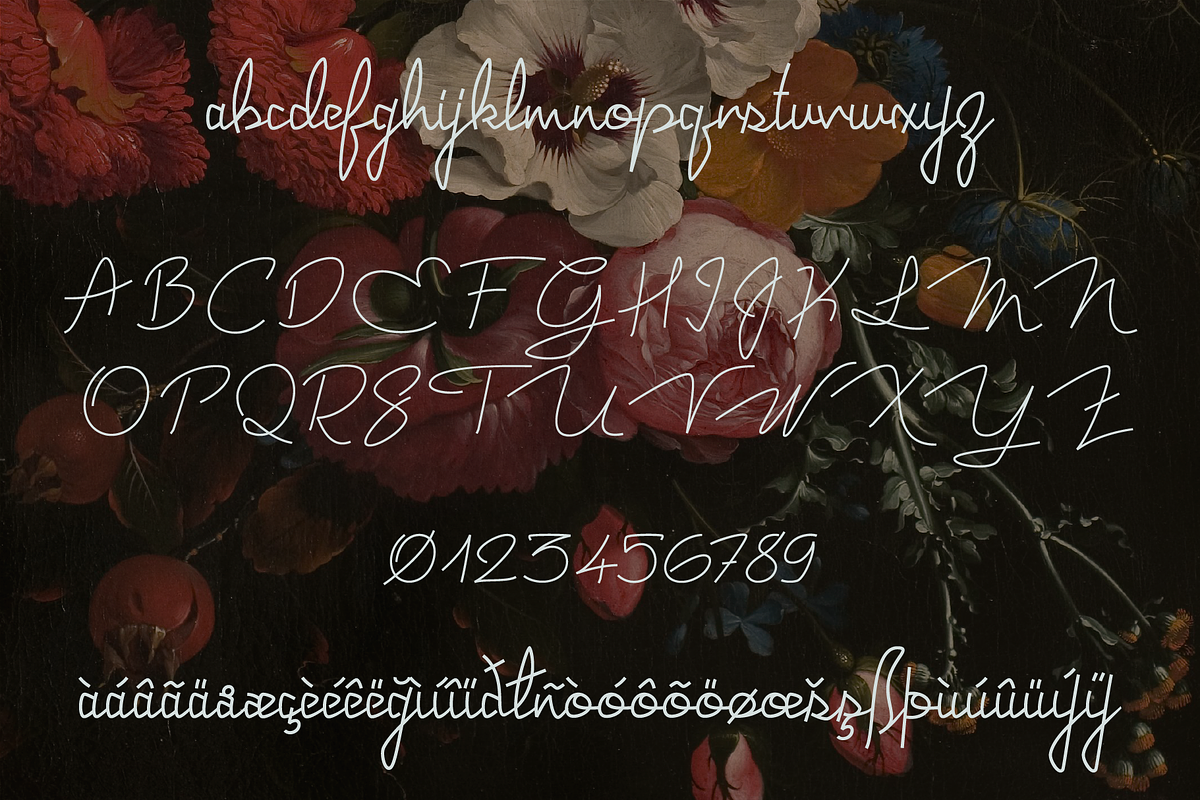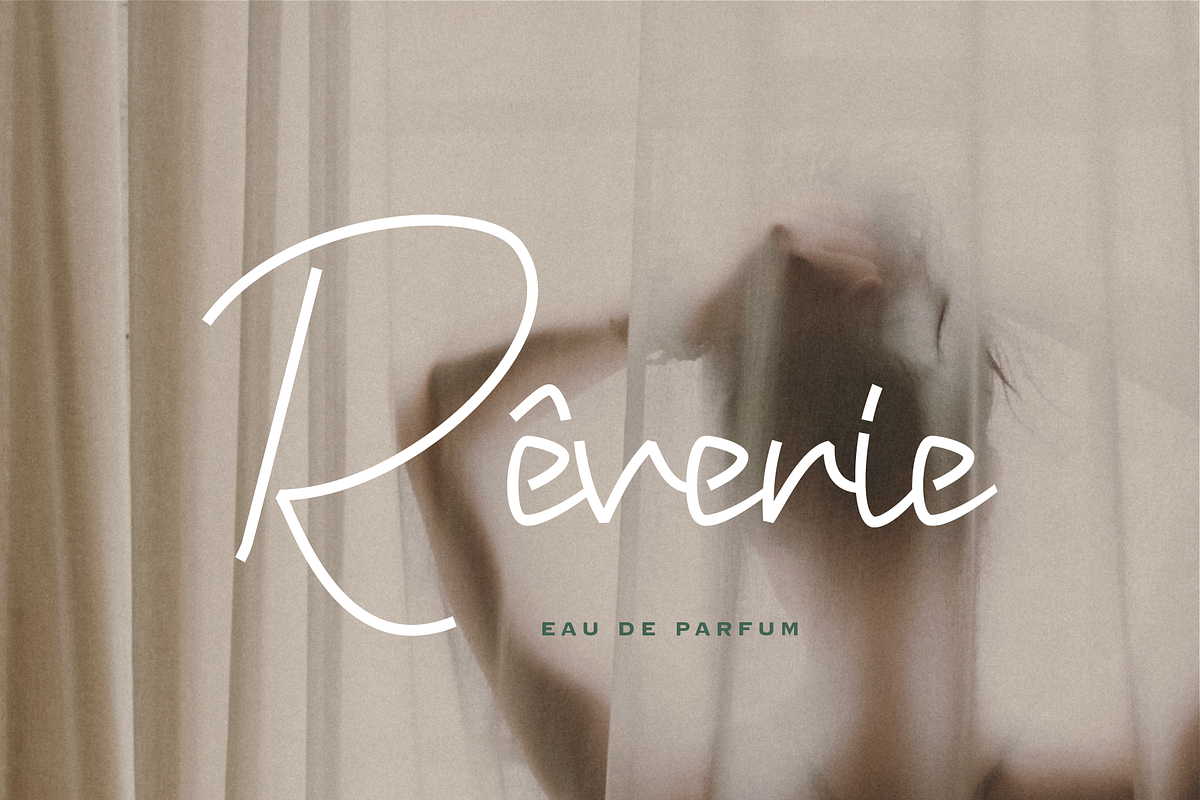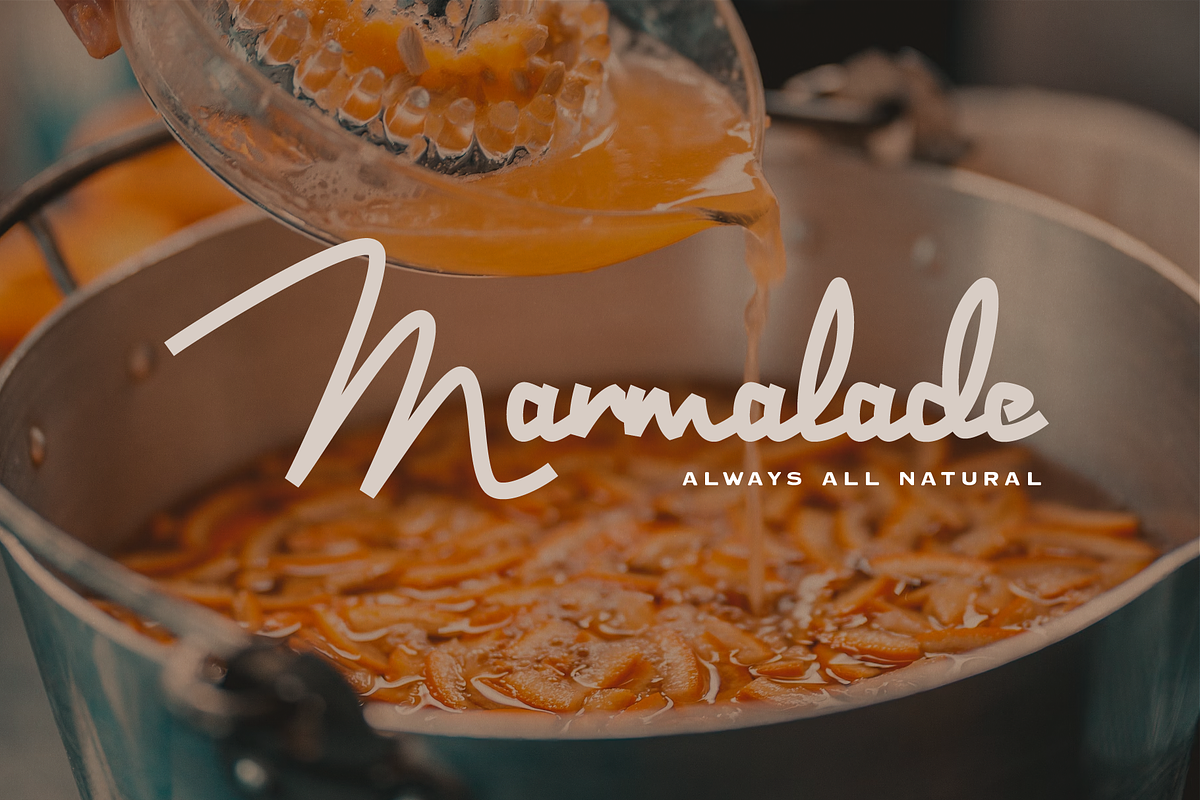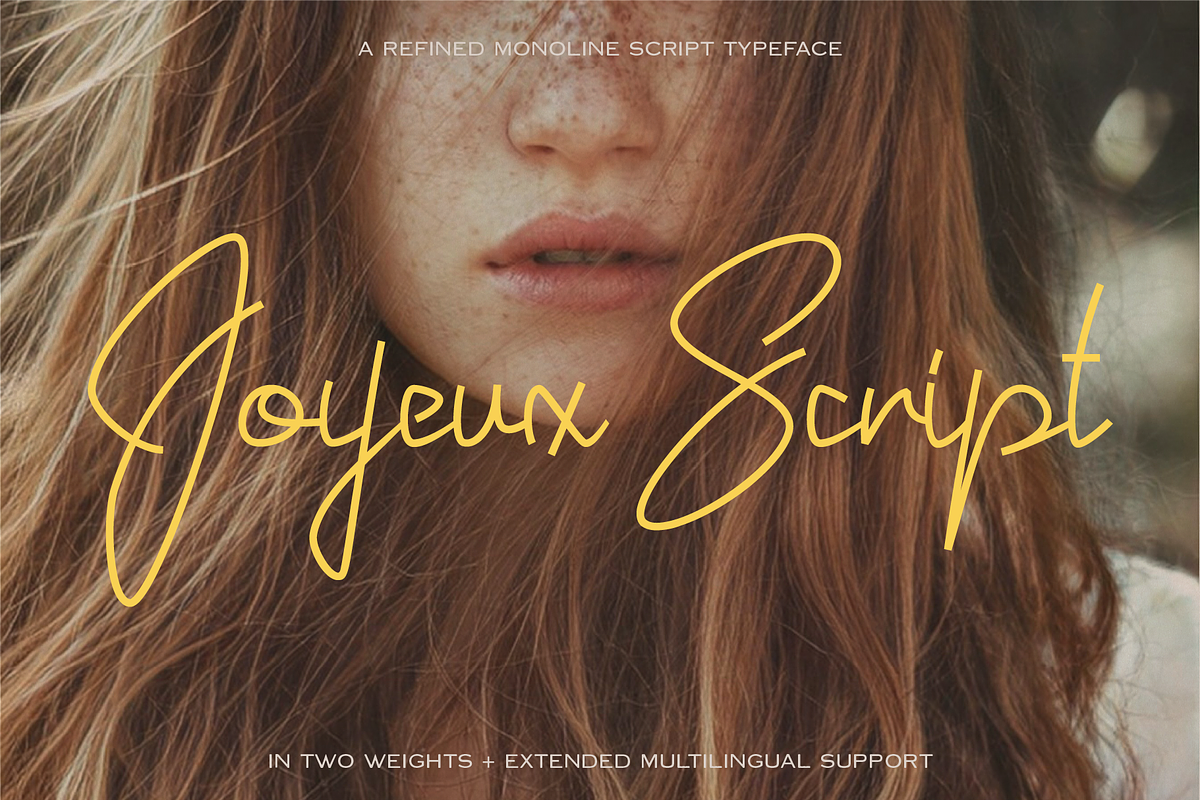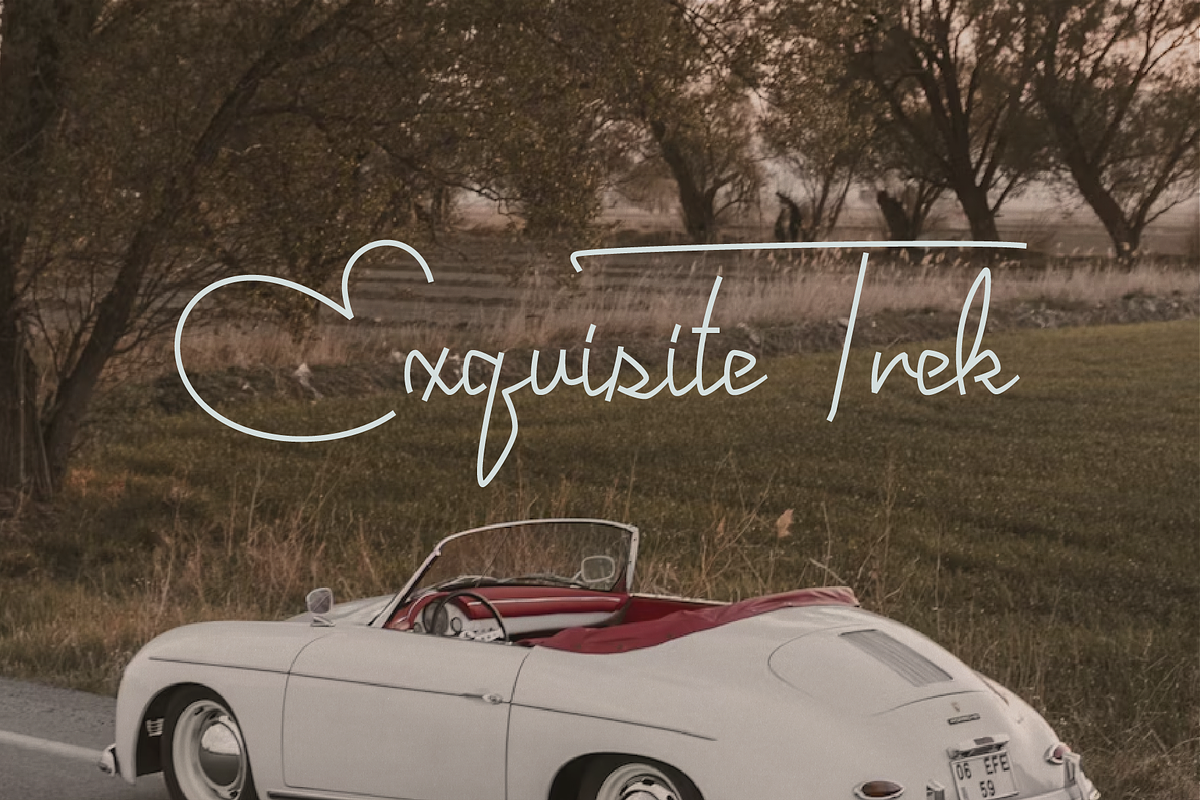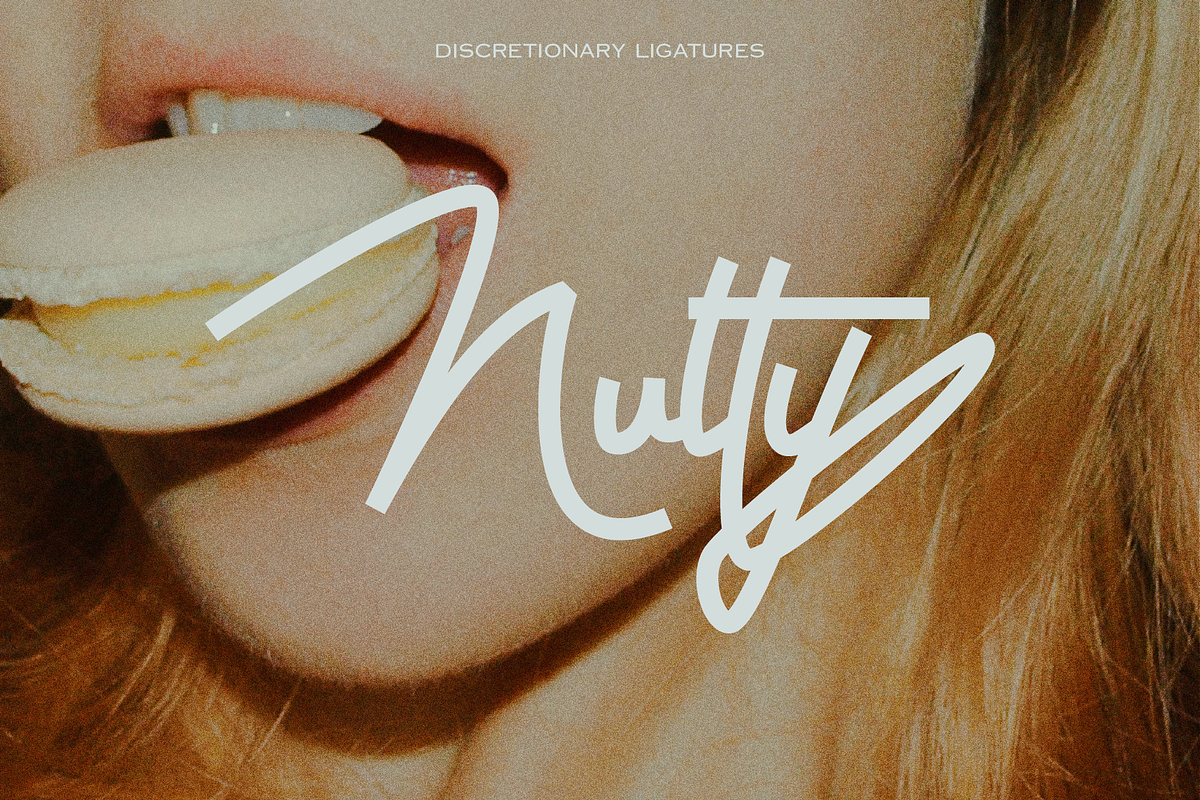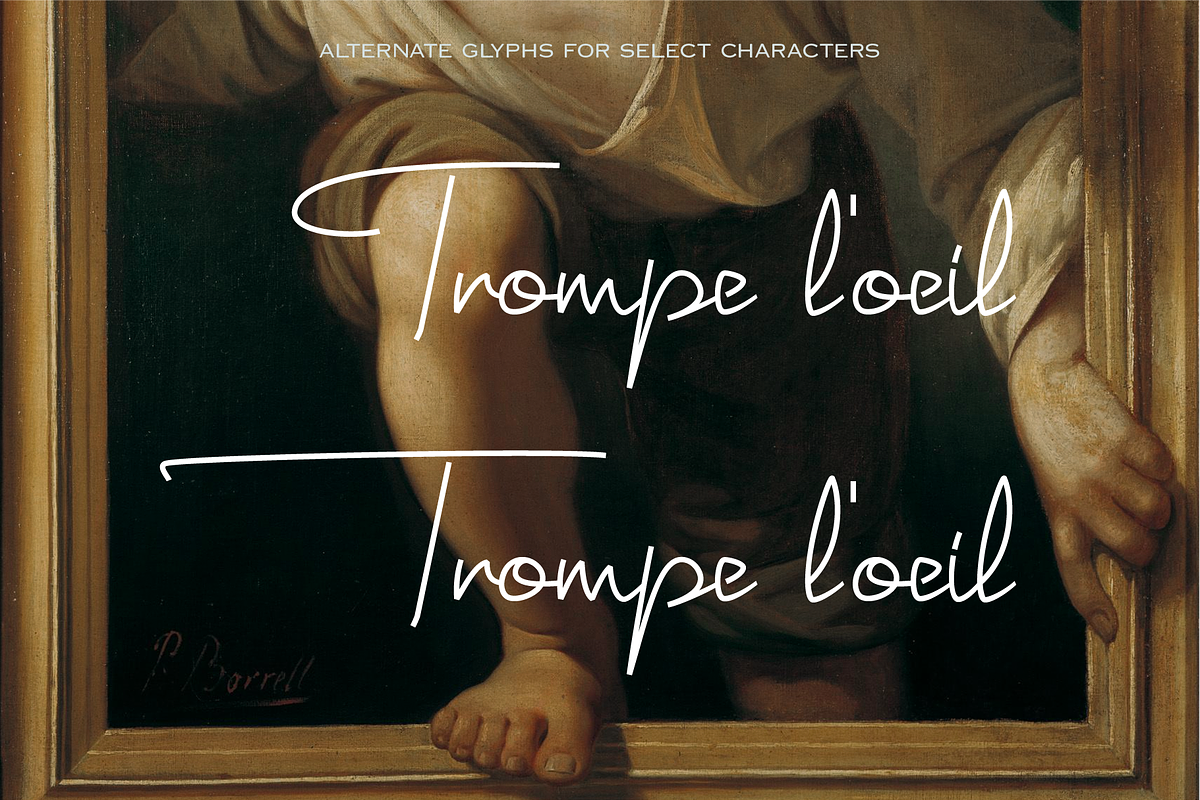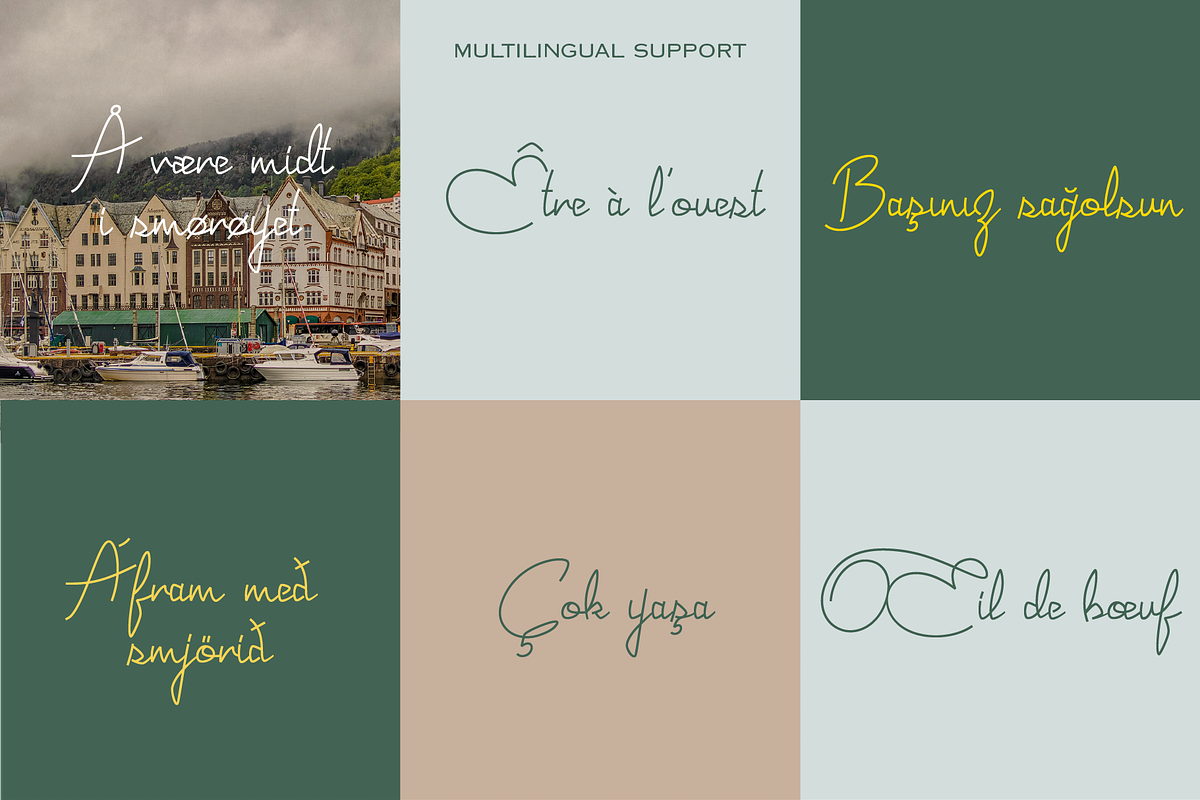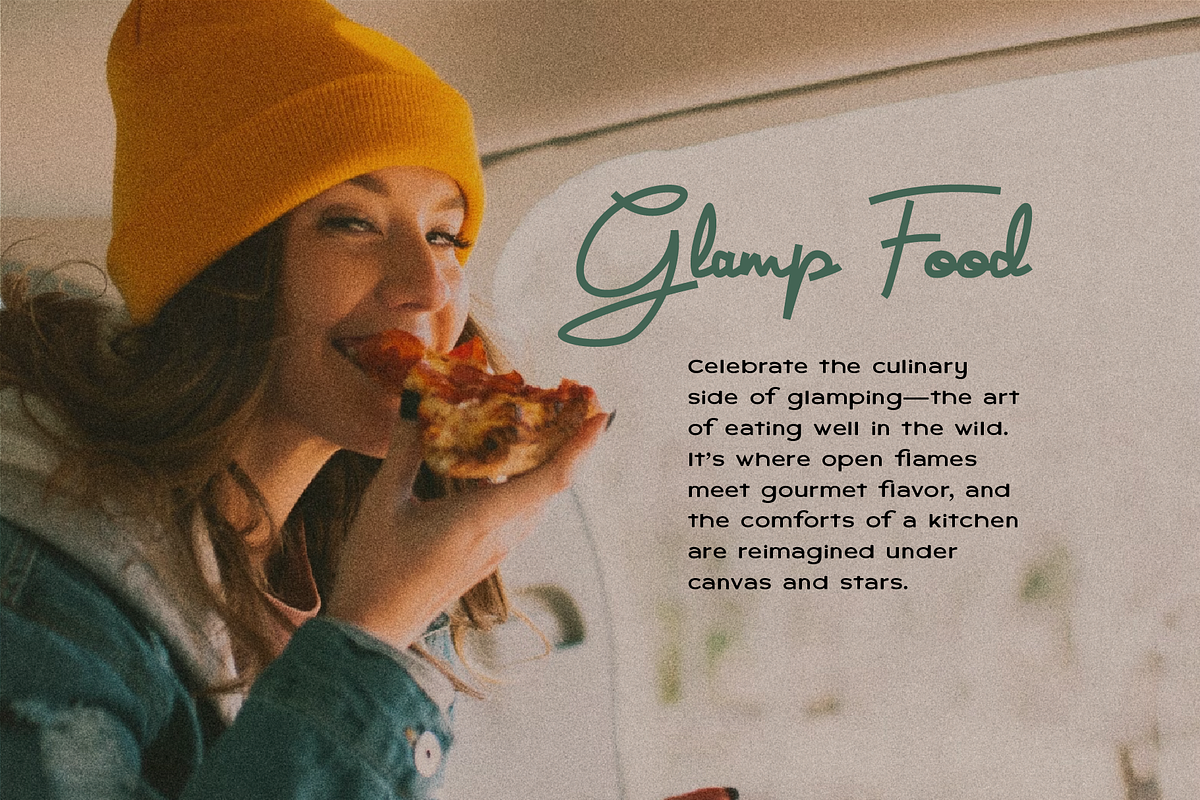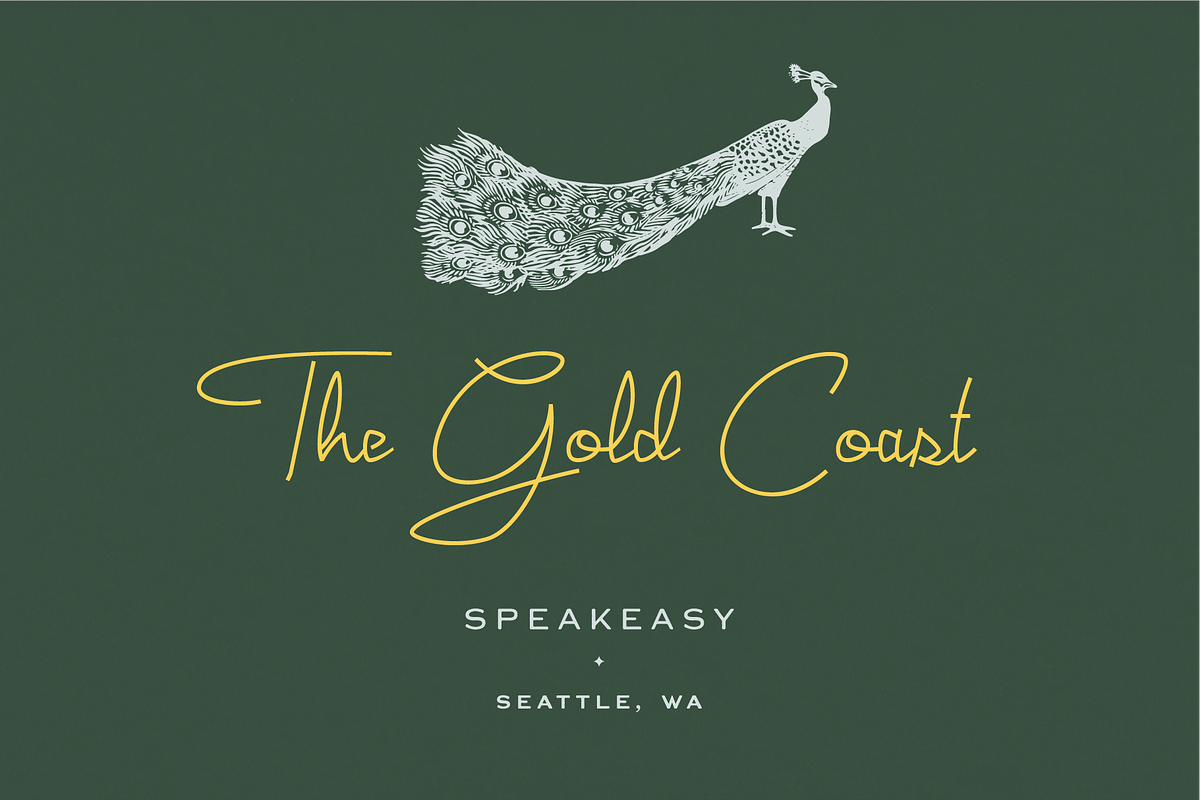
Joyeux Script
Joyeux© Script is a refined script typeface inspired by the elegance and optimism of mid-century modern design. It combines geometric clarity with fluid rhythm—balancing precision and warmth in equal measure.
The letterforms draw from the clean lines and graceful curves of modernist lettering, resulting in a script that feels both timeless and contemporary. With its effortless flow and architectural simplicity, Joyeux Script carries a sense of motion and restraint—structured enough for modern layouts, yet fluid enough to feel alive on the page.
Available in Regular and Bold weights, it adapts seamlessly to a range of applications—from editorial layouts and logos to packaging, signage, and identity systems that celebrate mid-century aesthetics.
- Two weights: Regular & Bold
- Geometric, modernist script construction
- Extended multilingual support
- Numerals, punctuation, and symbols
- Alternates and discretionary ligatures
Ideal For: Brand identity, editorial design, product packaging, signage, and modern lifestyle applications inspired by mid-century design principles.